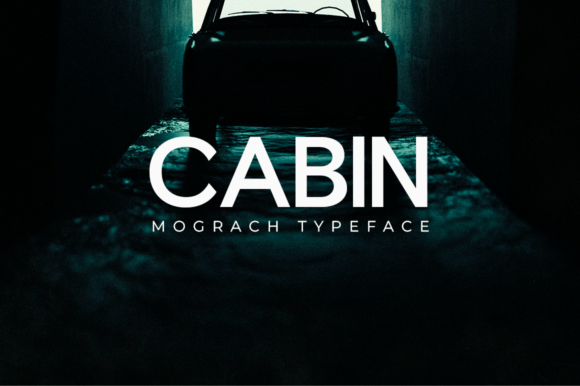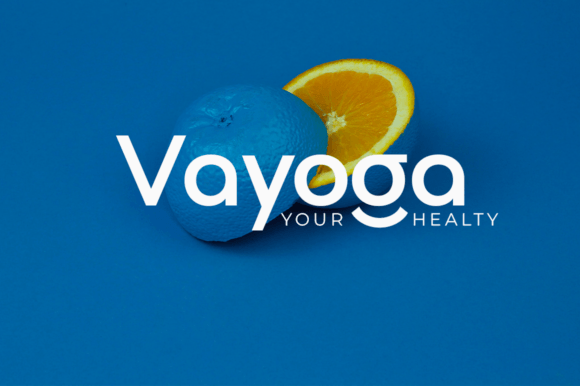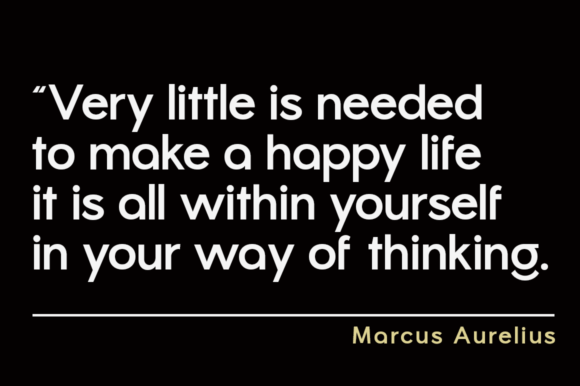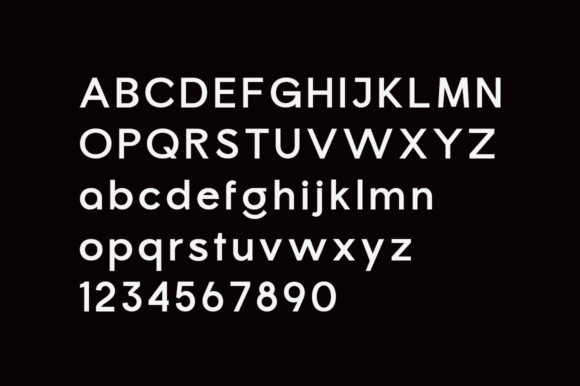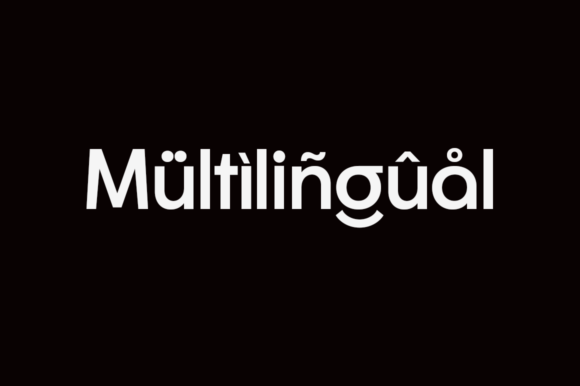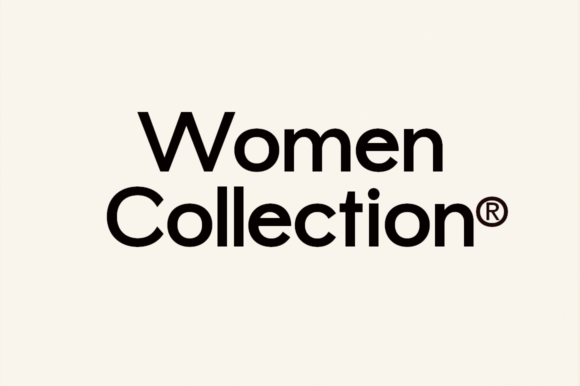
Introduction to Mograch Font Font
Fonts play a crucial role in design, and the Mograch Font font is a typeface that brings both character and versatility to any project. Whether you’re working on a branding project, a website, or a print design, the Mograch Font font offers a unique style that can elevate your work.
Mograch was designed to be a typeface that is pleasant to read on screens.
The typeface has a refined touch that gives any headline an elegant appearance Mograch is designed with both modern and vintage curves It works perfectly for creative projects such as logos, T-shirts/apparel, badge, invitation, packaging, headline, poster, magazine, greeting cards, and wedding invitations.
Key Features of Mograch Font Font
Why Choose Mograch Font Font?
The Mograch Font font is more than just a typeface – it’s a design tool that helps you communicate your message with style and clarity. Its unique character set and versatile design make it suitable for a wide range of applications, from elegant invitations to bold headlines.
With its carefully crafted letterforms and balanced proportions, the Mograch Font font ensures readability and visual appeal across all mediums.
What makes Mograch Font font special?
The Mograch Font font stands out with its unique design, exceptional readability, and versatility across various design applications.